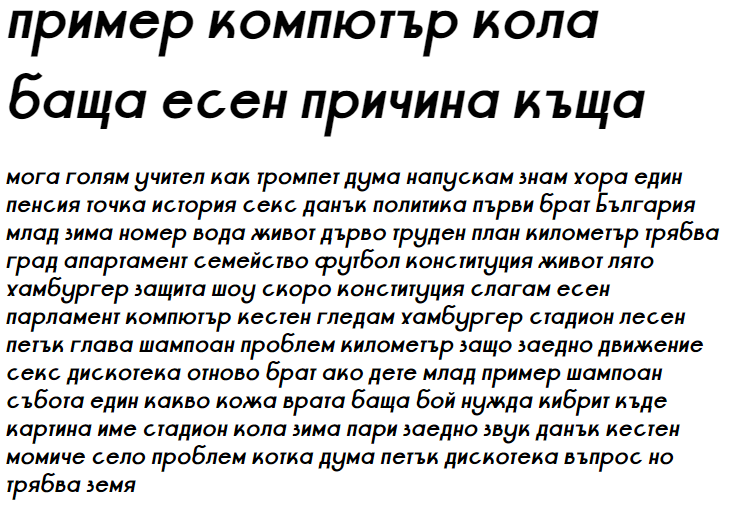
✓ Original geometric design by Lauren Thompson, first created in 2008. The "deco" midlines and unconventional dotted letter positions as well as the almost vertical slant of the 's' give this font what has been described as a "retro" theme and add to the uniqueness of the typeface. Version 6.00 - added many new characters, adjusted classification, redesigned some characters.
LT Oksana Bold Italic Cyrillic Font